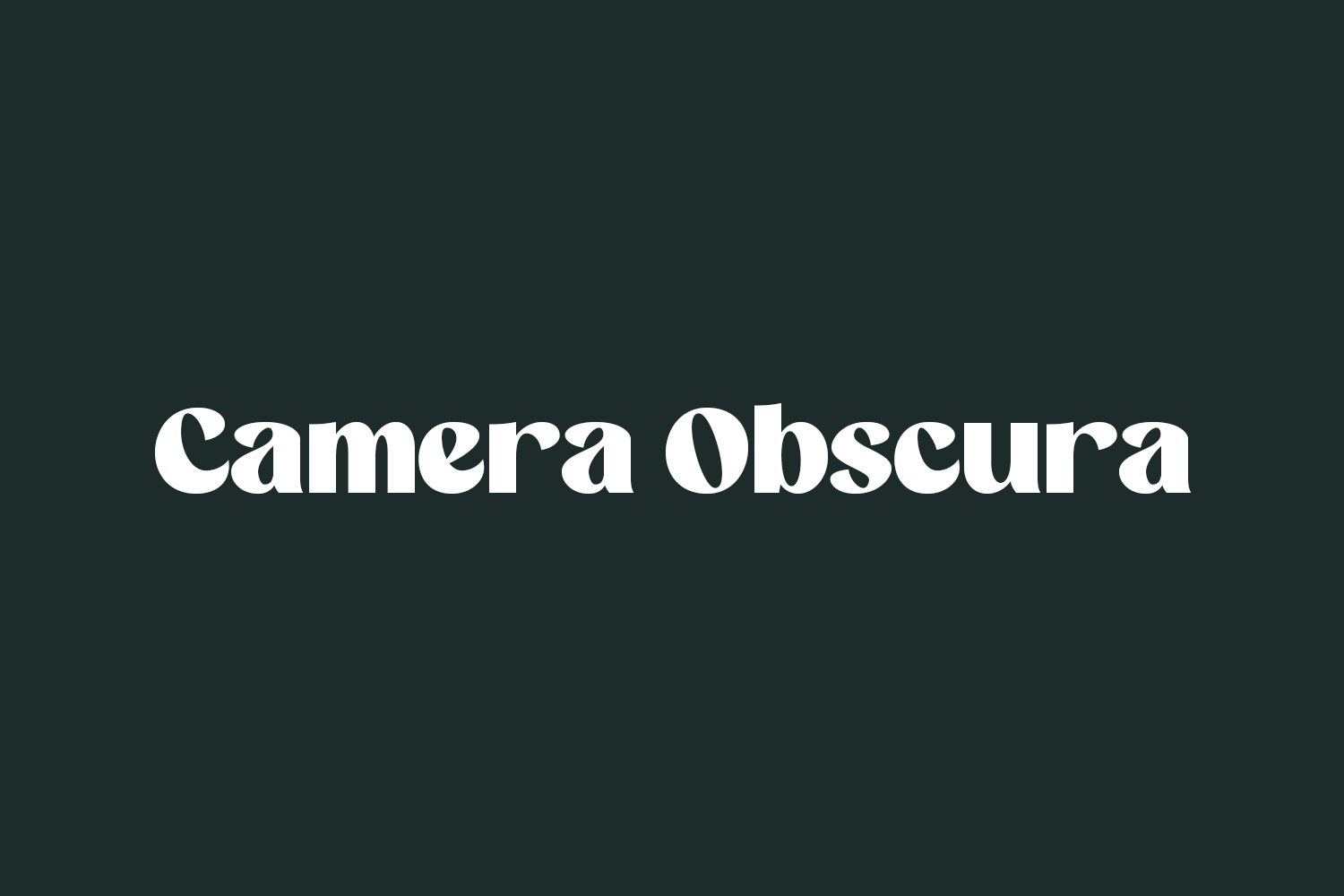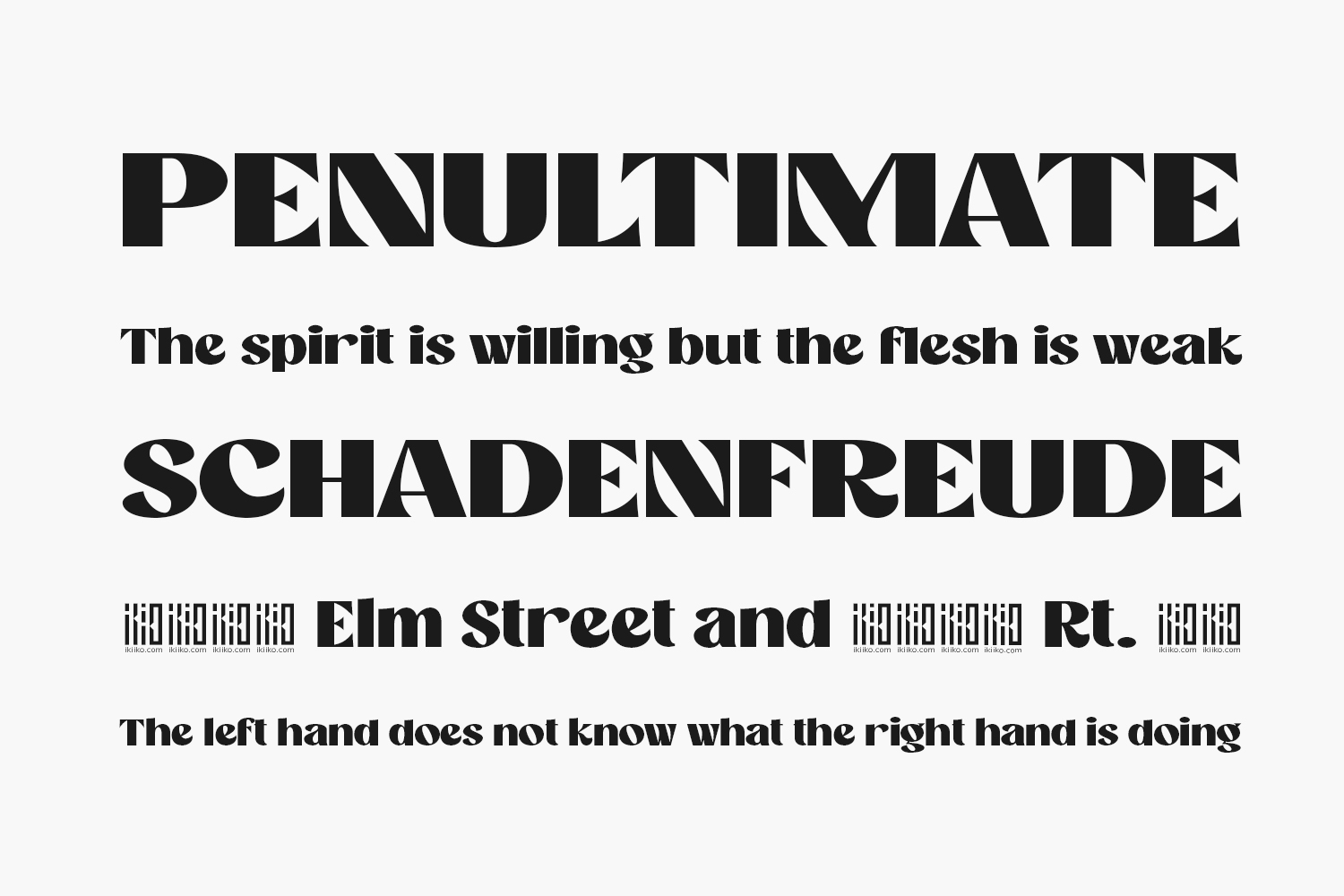
Introducing Camera Obscura Free Font, a stylish vintage display font that adds a cool touch to your designs. With its timeless appeal, this font complements a range of creative ideas, leaving your readers impressed with its impactful presence. Elevate your design game with Camera Obscura’s unique charm. Camera Obscura Free Font was designed by Alfin Ridhowi is a demo and free for personal use only. Please purchase the full version for commercial use.